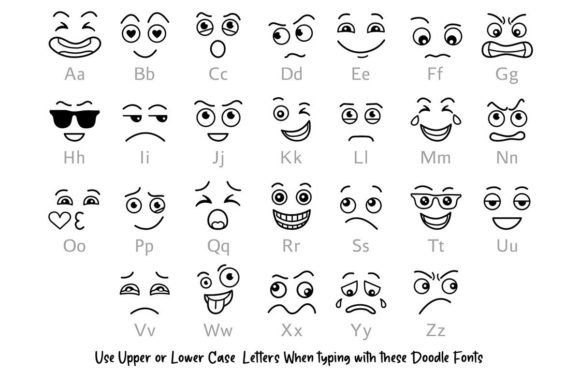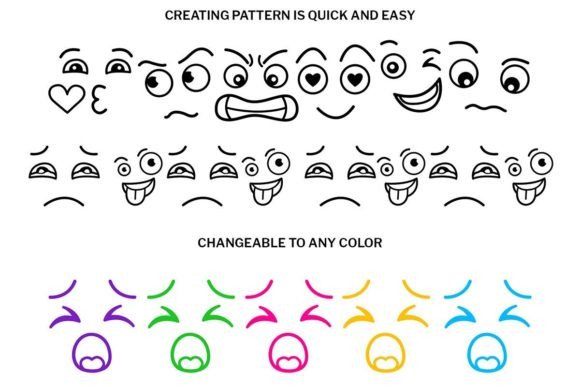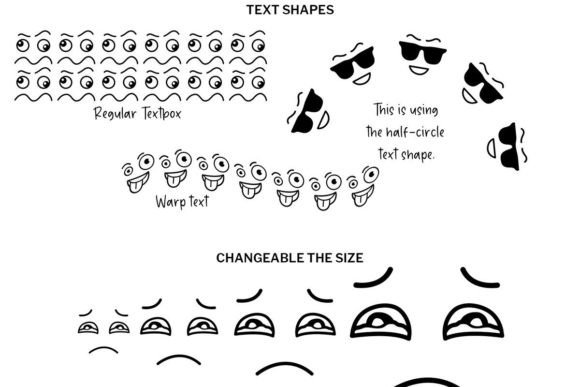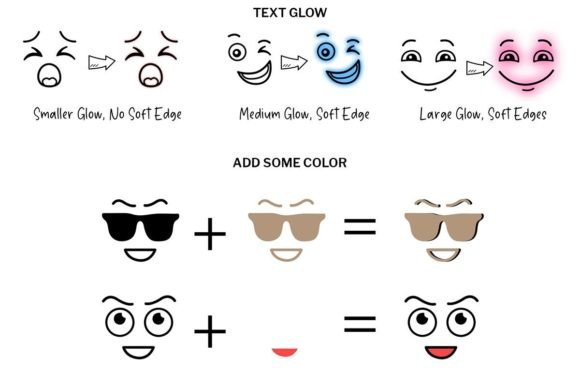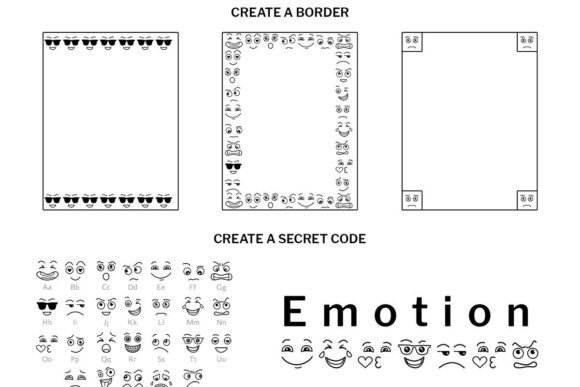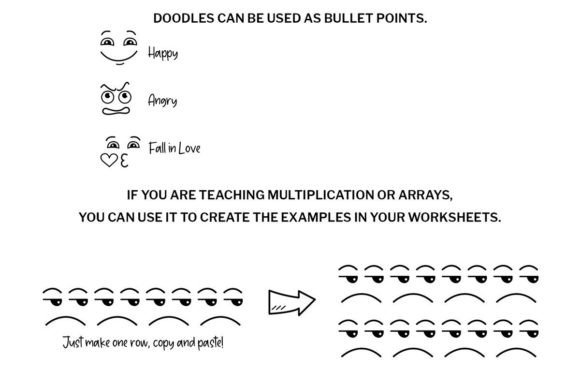
The Joy of Creating with Emotion Doodle Font
Have you ever sat down with a blank page, a pencil in hand, and let your creativity run wild? The rush of ideas, the spark of inspiration, and the pure joy of bringing something new to life is what makes us artists and designers. It’s in these moments that we connect with our inner selves and tap into our imagination.
Emotion Doodle Font is a delightful addition to any creative endeavor. This playful dingbats font is designed to bring a touch of whimsy and charm to your projects. From craft designs to planners, diaries, and activity books, Emotion Doodle Font is the perfect companion for anyone who wants to add a little extra magic to their work.
As designers, we know how valuable a versatile font like Emotion Doodle Font can be. Its unique style and charm make it a valuable asset for any project, allowing us to express ourselves and connect with our audience on a deeper level.
Key Features of Emotion Doodle Font
- Unique Hand-Drawn Style: Emotion Doodle Font features a distinctive hand-drawn style, making it perfect for creating emotive and expressive designs.
- Character Set: Includes a wide range of characters, including uppercase and lowercase letters, numbers, and punctuation marks, as well as special characters and symbols.
- Perfect for Emotional Designs: Designed to evoke emotions and convey feelings, Emotion Doodle Font is ideal for use in social media graphics, posters, flyers, and other visual content.
Emotion Doodle Font Review
I recently had the chance to work with the Emotion Doodle Font, and I must say, it’s a unique and playful addition to any design project. ✨ The font’s hand-drawn feel and whimsical style make it perfect for creative and expressive projects, such as children’s books, greeting cards, or social media graphics.
Here are some things that I think work well with this font:
- Expressive and varied letterforms: Each letter has its own distinct personality, which makes it easy to convey emotions and moods in your designs.
- Highly customizable: The font comes with a range of options for size, color, and style, making it easy to adapt to different design contexts.
- Fun and engaging: The Emotion Doodle Font is sure to add a touch of personality to your designs and make them more engaging for your audience.
- Lack of consistency: Some of the letters may not be perfectly legible or consistent, which can make it difficult to use the font in formal or professional contexts.
- Not ideal for body text: Due to its playful and expressive nature, the Emotion Doodle Font may not be the best choice for large blocks of body text.
- May not work well in small sizes: The font’s hand-drawn style can make it difficult to read in small sizes, so be sure to test it out at different scales.
Overall, I think the Emotion Doodle Font is a great choice for designers who want to add a touch of whimsy and personality to their projects. With its expressive letterforms and customizable options, it’s a great addition to any design toolkit. Just be mindful of its limitations and use it thoughtfully in your designs.